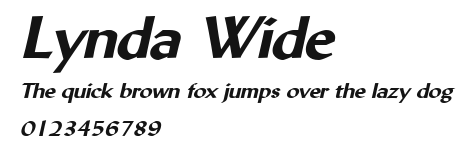
• Font Name: Lynda Wide
• Full Font Name: Lynda Wide Bold Italic
Lynda Wide.ttf is a modern, elegant sans-serif font designed for ultimate readability and visual harmony. Perfect for branding, headlines, web design, and print materials.